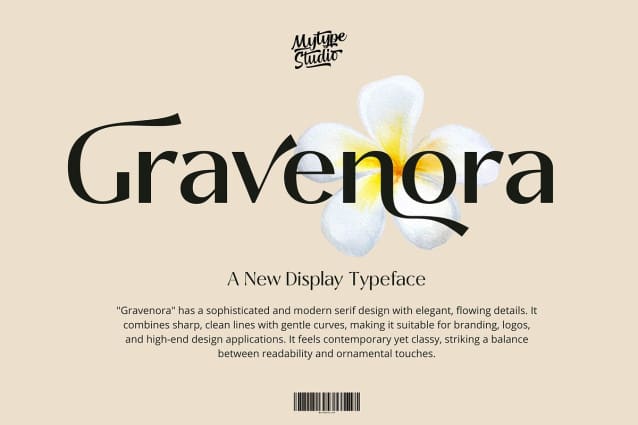
Gravenora Font
Gravenora Font, a beautifully crafted serif font that merges timeless elegance with contemporary style. Perfectly suited for branding, logos, invitations, and high-end editorial design, Gravenora brings a sense of luxury to every project.